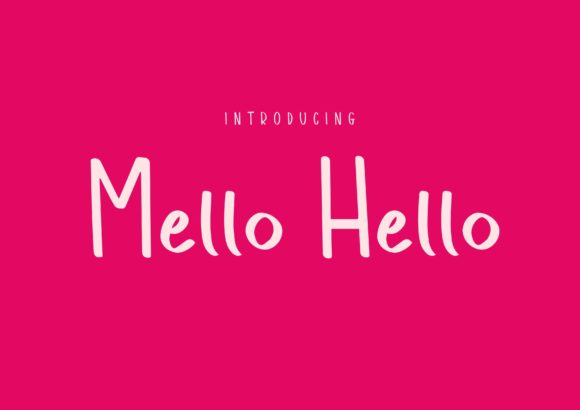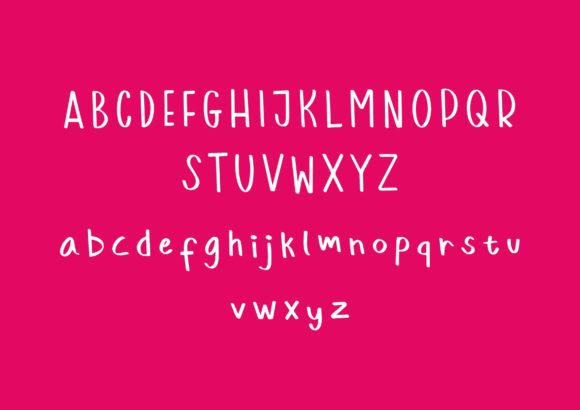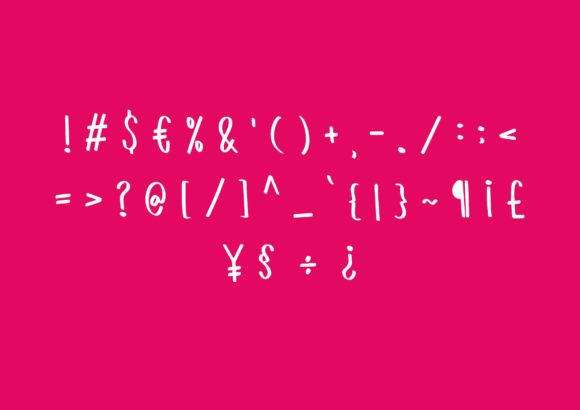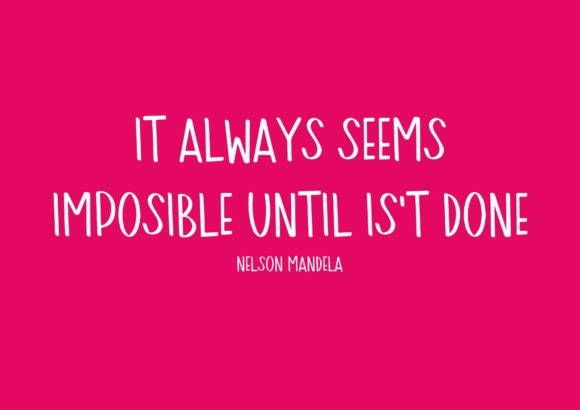
Mello Hello Font
About Mello Hello Font
Mello Hello is a simple and playful handwritten font. It’s perfect for whimsical designs, logos, greeting cards, quotes, and much more.